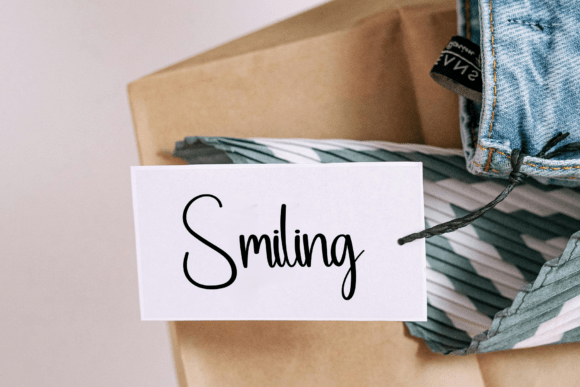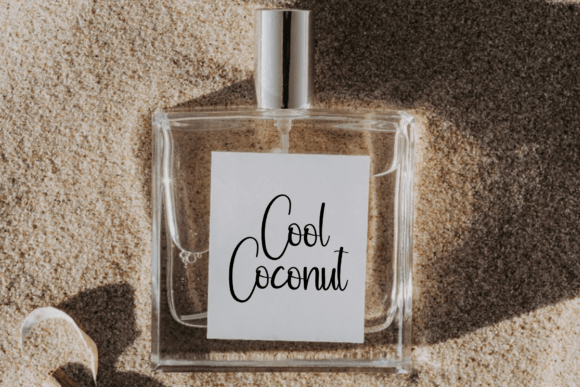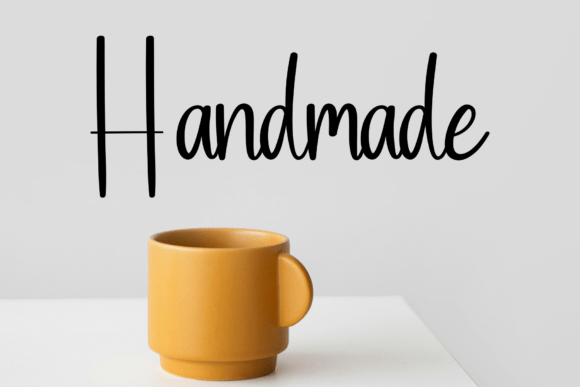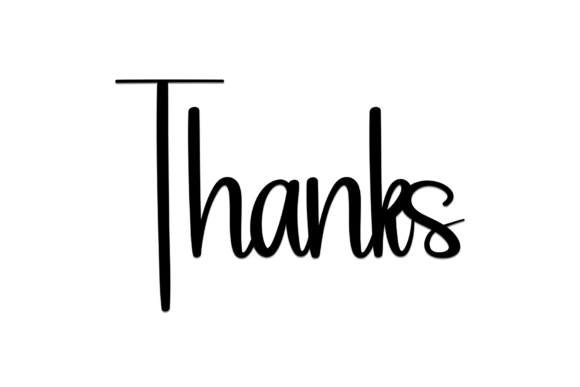
Introduction to Hiking Newyear Font
Have you ever stumbled upon a design element that perfectly captures the essence of your creative vision? For many designers, this moment of serendipity can be a game-changer. It happened to me when I discovered the Hiking Newyear Font – a charming handwritten font that exudes a sense of heartfelt perfection.
With its smooth strokes and organic lines, Hiking Newyear Font is the perfect addition to any design project. Whether you’re working on branding, invitations, or social media graphics, this font is sure to bring a touch of warmth and personality to your work. Its versatility and high-quality design make it an invaluable resource for designers looking to elevate their creative projects.
Key Features of Hiking Newyear Font
- High-quality design resource for creative projects, ideal for winter-themed or New Year’s celebrations.
- Features a unique and modern design with a transparent background, allowing for easy customization and placement.
Honest Review: Hiking Newyear Font
One of the things that stands out about the Hiking Newyear Font is its high quality design. The font is perfect for any creative project that requires a rustic or outdoorsy feel. The transparent background adds a nice touch, allowing the font to blend seamlessly with any design.
- ⚠️ Limited font styles available (only a few options)
- ⚠️ Not ideal for formal or professional projects
Overall, I’m impressed with the Hiking Newyear Font. It’s a great resource for designers looking to add a rustic or outdoorsy feel to their projects. While it has some limitations, it’s definitely worth checking out.
Hiking Newyear Font
Tips for Getting the Most Out of Hiking Newyear Font
To get the most out of the Hiking Newyear Font, use it on a transparent background to make your design stand out. You can also pair it with other fonts to create a unique and eye-catching combination.
The Hiking Newyear Font is perfect for creative projects such as social media graphics, flyers, and posters. It’s also great for adding a personal touch to presentations and documents.